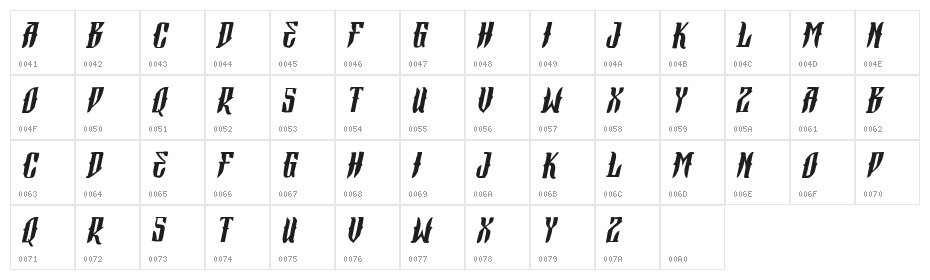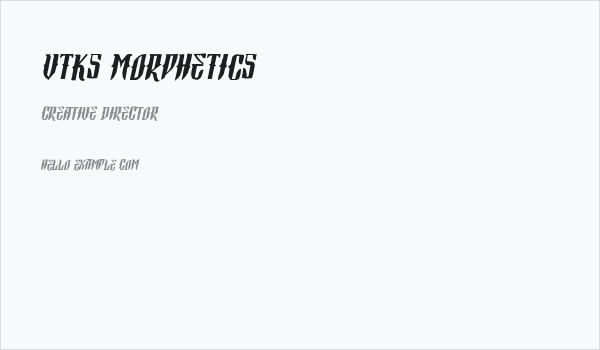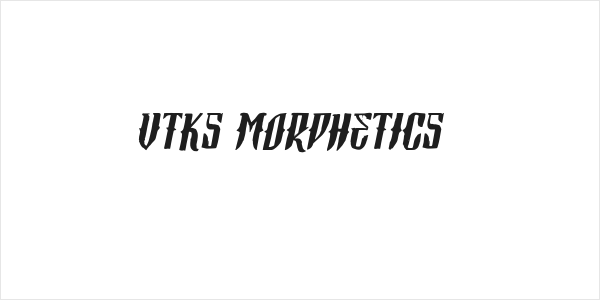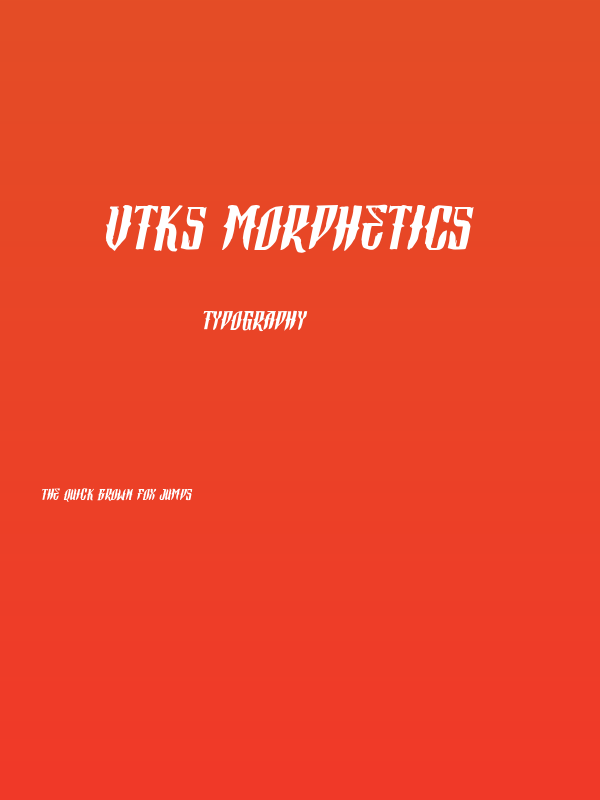
Vtks Morphetics 2 Font
Vtks Morphetics 2 Description
This font features a bold and dramatic style with sharp, angular edges and a gothic influence. The characters are highly stylized, with exaggerated serifs and a sense of movement that gives them a dynamic appearance. The uppercase letters are particularly striking, with a medieval flair that suggests a sense of mystery and intrigue. The overall design is cohesive, with consistent stroke widths and a balanced composition that makes it suitable for impactful headlines or artistic projects. The font's unique aesthetic is both eye-catching and memorable, making it a great choice for designs that require a bold statement.
| Overall Style | Gothic, Decorative |
| Proposed Projects | Ideal for album covers, posters, logos, and any design needing a bold, gothic touch. |